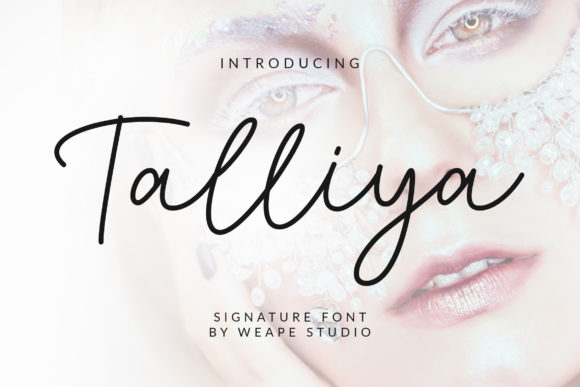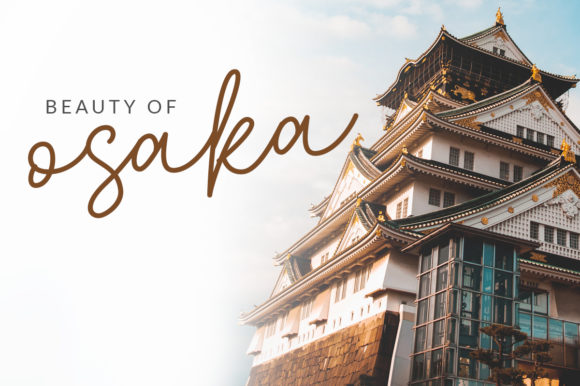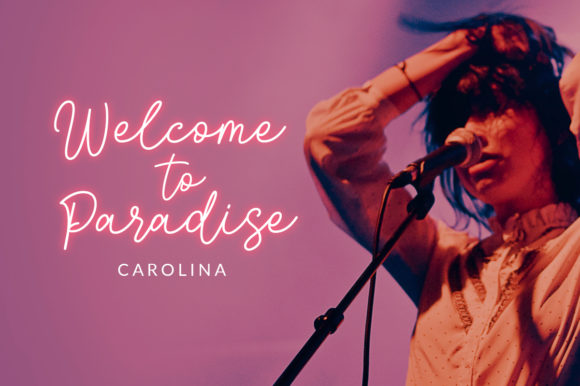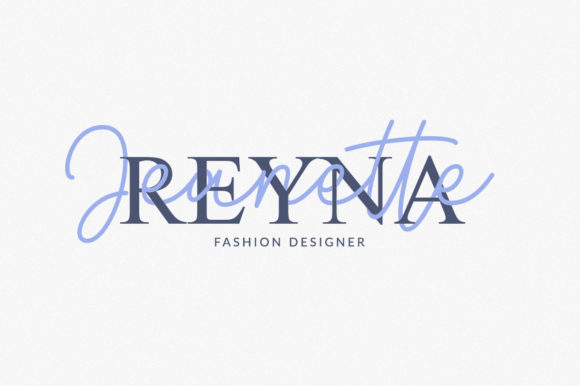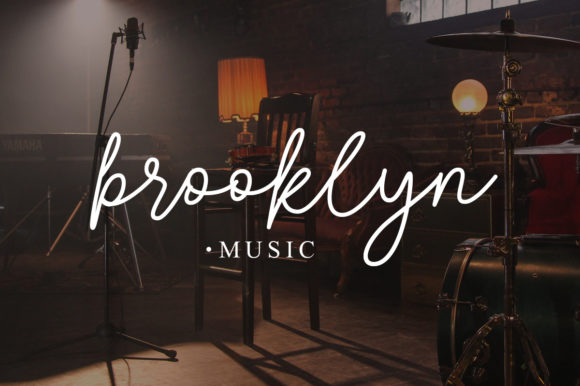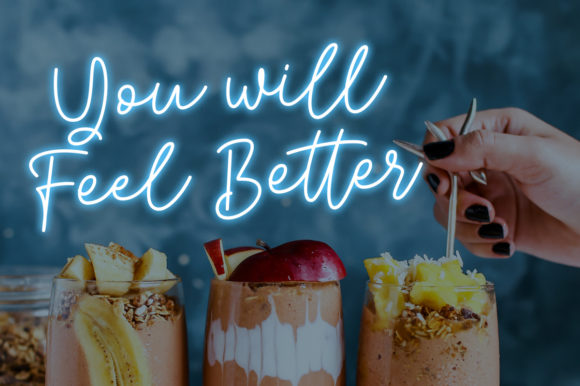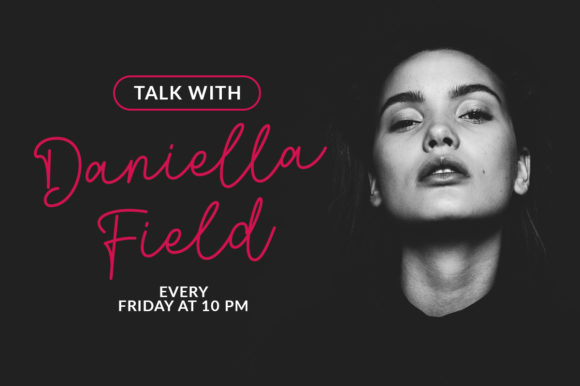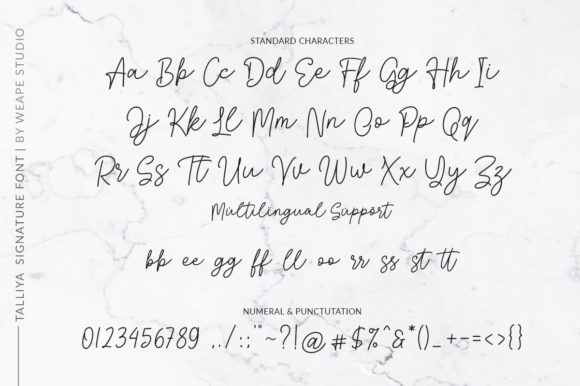
HomeScript FontsTalliya Font Script Fonts Talliya Font FacebookXPinterestWhatsApp Talliya Font Poster 2 Talliya Font Poster 3 Talliya Font Poster 4 Talliya Font Poster 5 Talliya Font Poster 6 Talliya Font Poster 7 Talliya Font Poster 8 About Talliya Font Talliya is s casual, yet romantic script font with beautiful lettering. Fall in love with its romantic charm! DOWNLOAD NOW People also explored Toddler Font Sephia Font Atarashi Font Quitella Font Captain Font Hikerstone Family Font Brave Brothers Font Lovestreet Font Milkshake Caramels Font 292 0 TagsTalliya Font Previous articleLaritta FontNext articleCaylee Script Font LEAVE A REPLY Cancel reply Comment: Please enter your comment! Name:* Please enter your name here Email:* You have entered an incorrect email address! Please enter your email address here Website: Save my name, email, and website in this browser for the next time I comment. Personal Use Free Starry Cakes Personal Use Free Read more about this font Adeline Personal Use Free Read more about this font Roland Personal Use Free Read more about this font Zojihun Personal Use Free Read more about this font BLOG Best Fonts for T-Shirt Design – Top 2025 Picks In 2025, t-shirt design has become more than just fashion—it's a form of self-expression. Whether you're... Using Fonts in Digital Marketing: Tips to Strengthen Your Brand Identity Free vs Paid Fonts: Why Investing in Premium Fonts Is Worth It Fonts That Capture the Spirit of New York City